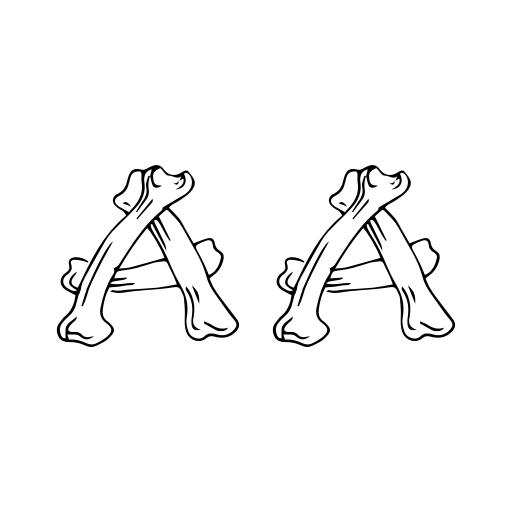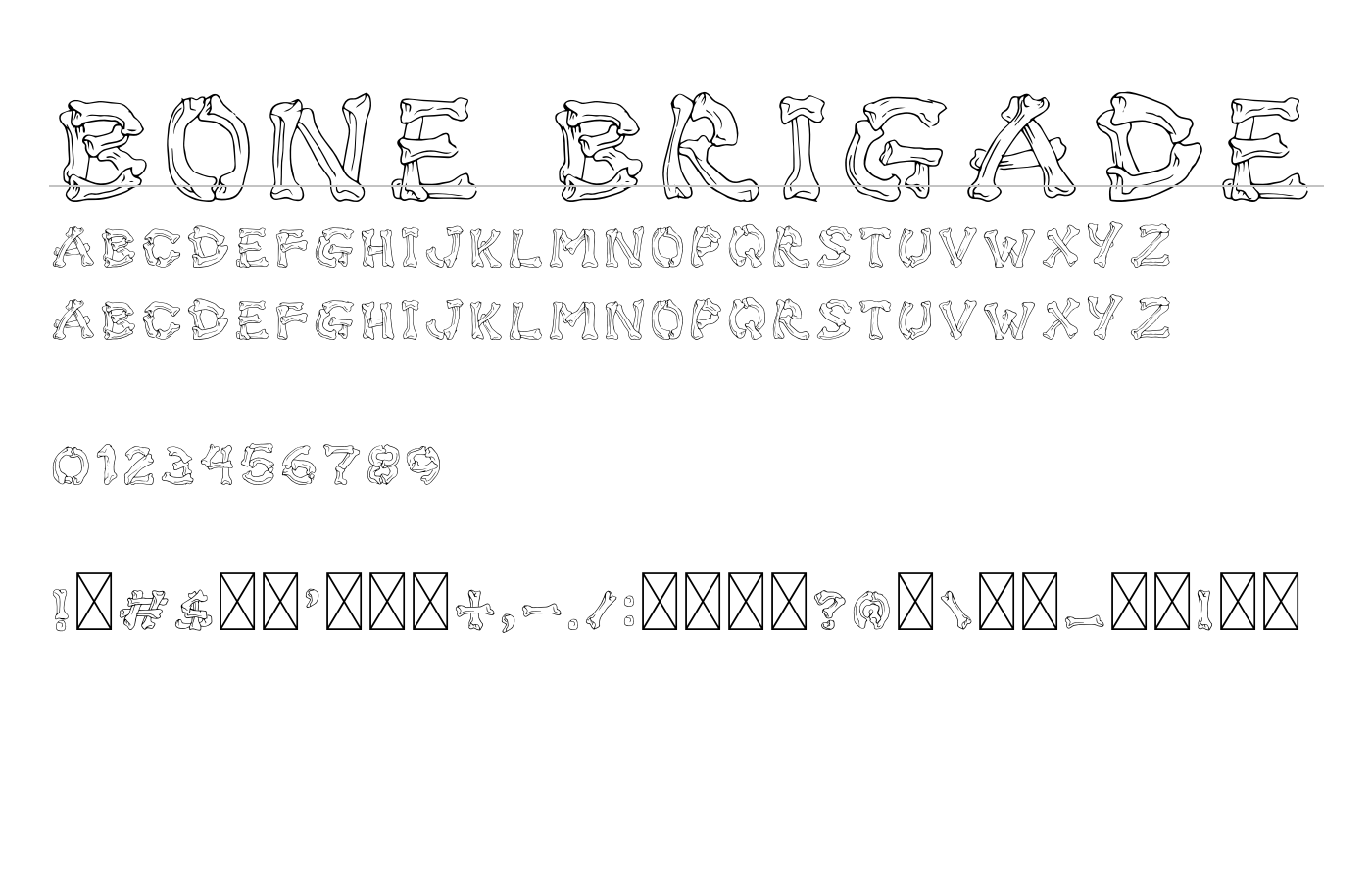
Bone Brigade is a playful and decorative display font shaped like stylized bones, giving it a unique, spooky, and fun character. Its irregular, hand-drawn appearance with varying stroke thicknesses makes it ideal for Halloween themes, edgy branding, or creative projects that want to convey a quirky, adventurous vibe. This font works best for headlines, posters, and logos where a bold, eye-catching style is needed rather than for body text.
Bone Brigade Font
About Bone Brigade Font